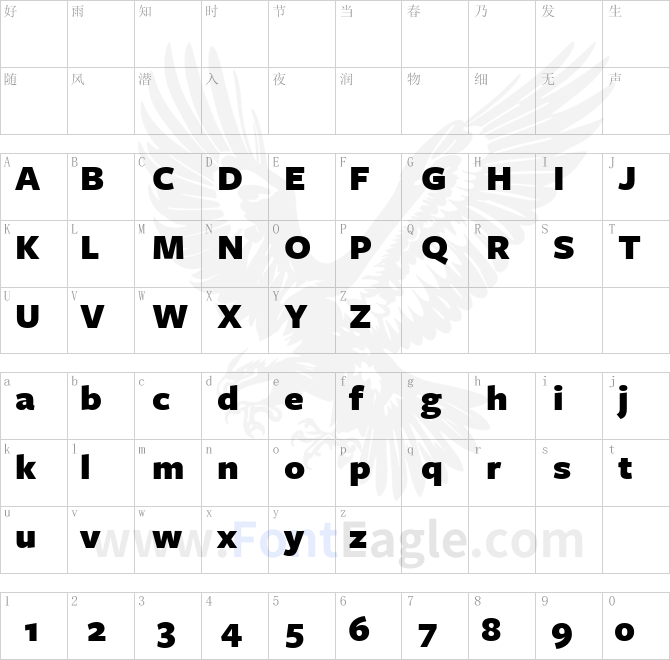
- Font name:FreightSans Black
FreightSans-Black is a great font, widely used in graphic design, single-page menu design, poster design and other fields, and is deeply loved by designers.FreightSans-Black download.